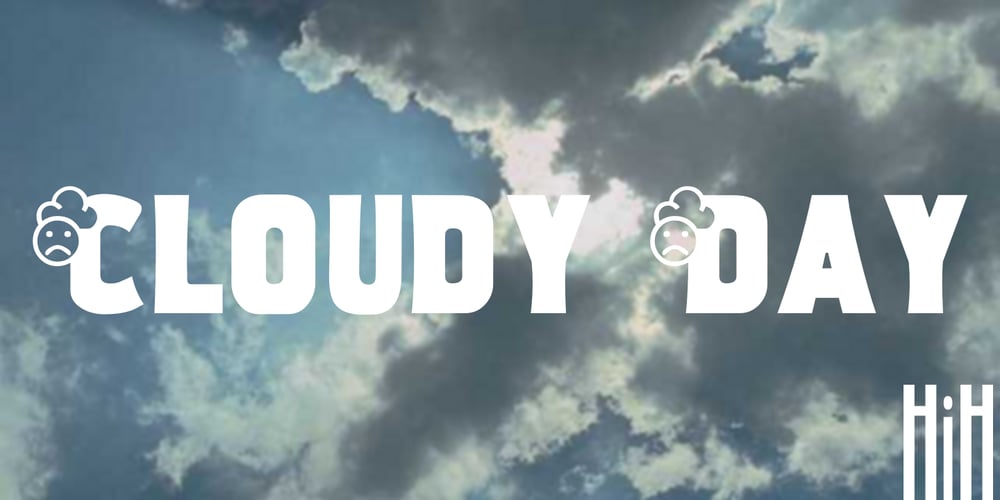
Cloudy Day
Cloudy Day font
Cloudy Day Font Family was designed by published by HiH. Cloudy Day contains 2 styles and family package options. Cloudy Day: Into every life a little rain must fall. We all have our cloudy days. Life happens. Sometimes we just do not feel like smiling. Cloudy Day is a font for one of those days. It is the converse of our Smiley Sunshine face. For perspective, we have provided a small reminder glyph at alt-0177. Thinking of this glyph reminds me that my bad days are not that bad. Uncloudy Day: One thing leads to another. One of my favorite gospel hymns is called “Uncloudy Day” (lyrics are included in a text file that is part of the download package). Once I had created a font called Cloudy Day, how could I not create a font called Uncloudy Day? The problem, of course, was that I already had a smiley face font called Smiley Sunshine. So I took Smiley Sunshine and added a couple of glyphs, a complementary glyph at alt-0177 to the glyph in that position in Cloudy Day and an explanatory glyph at alt-0135. Uncloudy Day is included at no extra charge.